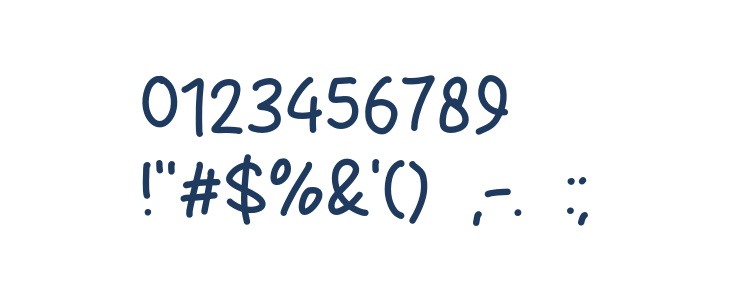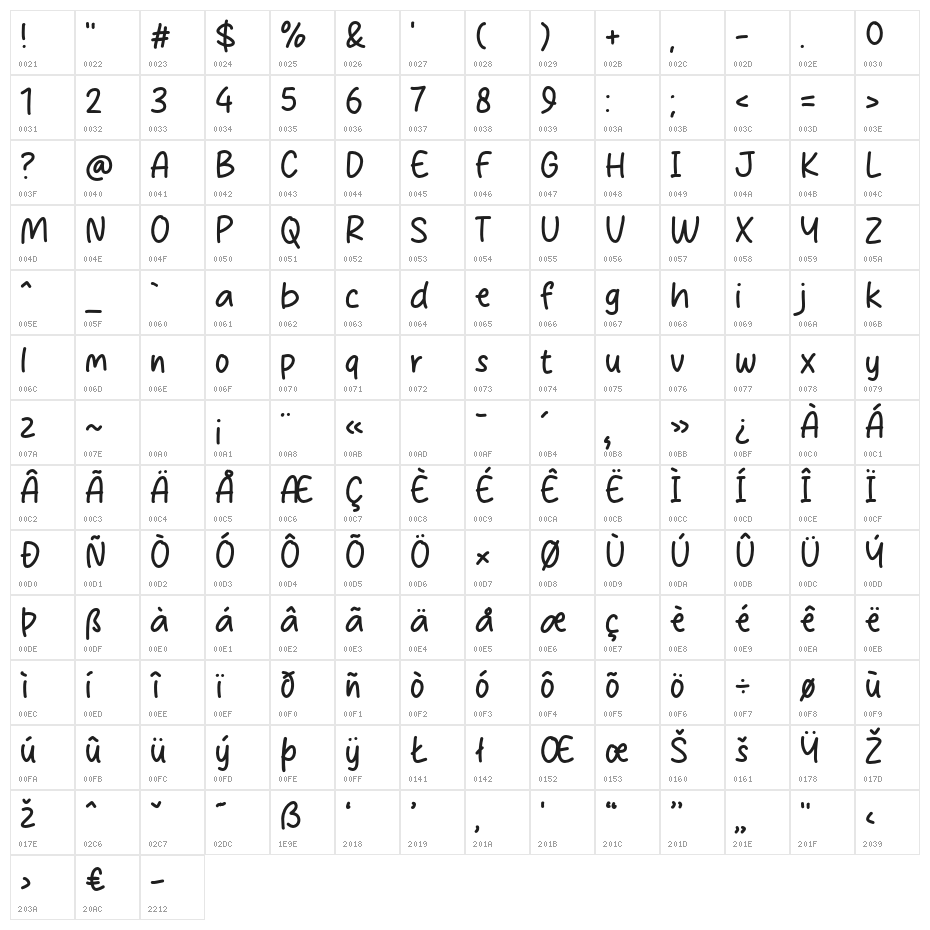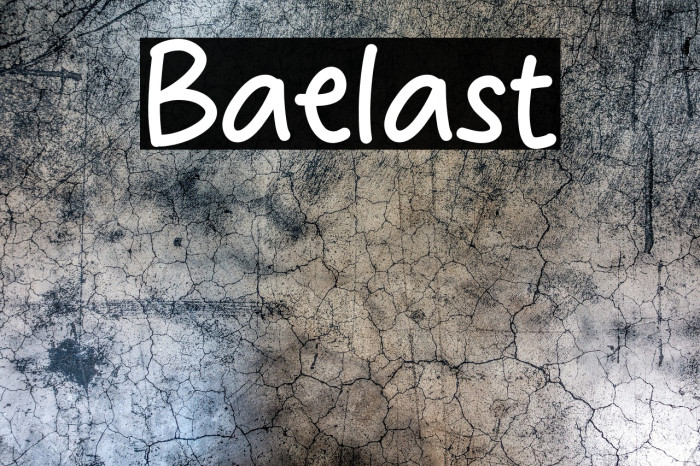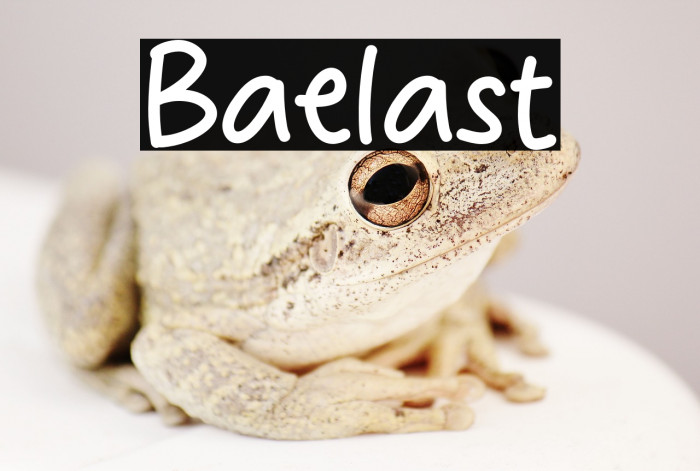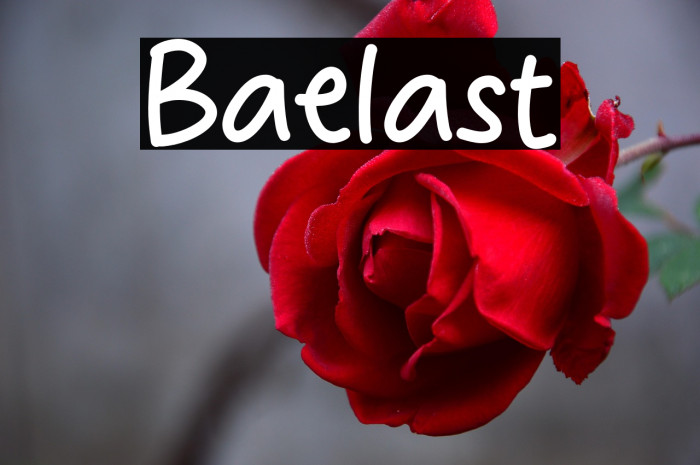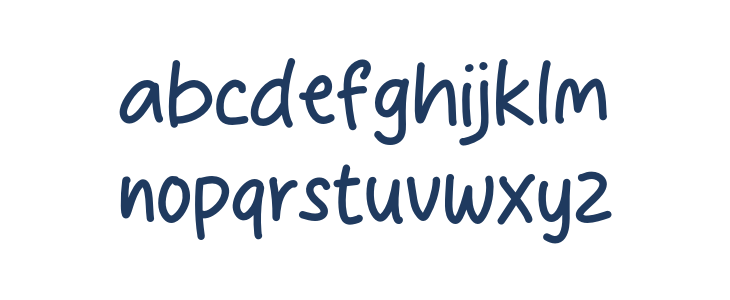
Baelast Font
Baelast Description
This font features a playful and casual handwritten style, characterized by its rounded and slightly irregular letterforms. The strokes are consistent in thickness, giving it a uniform appearance that is easy to read. The letters have a friendly and approachable feel, making it suitable for informal and creative projects. The numerals and special characters maintain the same playful aesthetic, ensuring a cohesive look across all text elements.
| Proposed Projects | Ideal for children's books, greeting cards, casual branding, and social media graphics. |